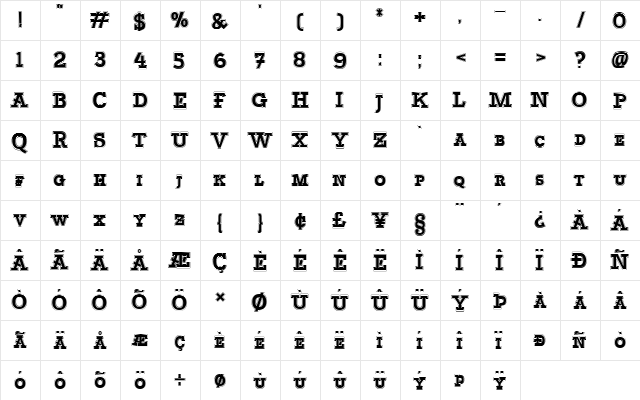
Bascula College
| Style | College |
| Foundry | Fernando Carvente |
Design Context for Bascula Typeface
Bascula has the bold swagger of sports branding: strong, assertive letterforms designed to dominate headlines and jerseys alike.
A natural choice for gym brands, fantasy sports, jersey lettering, and action-driven headlines.
Font Pairing: Use alongside a condensed or geometric sans for supporting copy — keep the pairing bold, functional, and free of ornament.
Pro Tip: Use Bascula in all-caps headlines where its athletic energy can fully express itself. Pair with a solid, simple sans for supporting text.